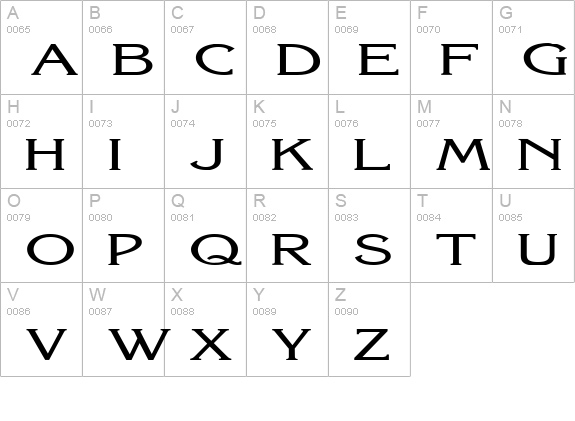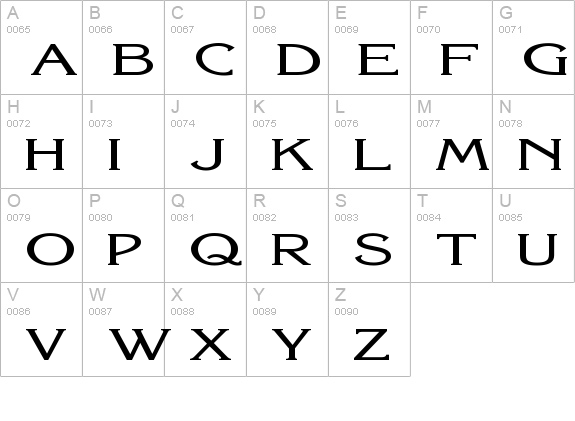
Keira Extended Normal is the standard, neutral, extended-width variant in the Keira typeface family \xE2\x80\x94 well suited to general body text, paragraphs, and standard typographic work.
Keira Extended Normal font is a captivating and versatile typeface that exudes elegance and sophistication. With its elongated letterforms and balanced proportions, this font effortlessly blends modernity with a touch of classic charm. Featuring a clean and legible design, Keira Extended Normal is suitable for a wide range of projects, from branding and logo design to editorial layouts and web typography. Its extended characters provide ample space for creative experimentation, allowing designers to craft unique and eye-catching compositions. The subtle curves and refined details of Keira Extended Normal lend a sense of refinement and professionalism to any design. Whether used in headlines, paragraphs, or captions, this font ensures optimal readability while adding a touch of personality to the text. One of the most appealing aspects of Keira Extended Normal is that it is available for free download at FontsMarket.com. This means that designers and creatives can easily access and utilize this exceptional font without any cost. With its high-quality design and freely accessible nature, Keira Extended Normal is a valuable asset for any designer's toolkit. In conclusion, Keira Extended Normal font is a visually striking and versatile typeface that effortlessly combines modernity with classic elegance. Its clean and legible design, along with its extended characters, make it suitable for a wide range of projects. And with its availability as a free download on FontsMarket.com, Keira Extended Normal is a must-have for designers looking to add a touch of sophistication to their creations.